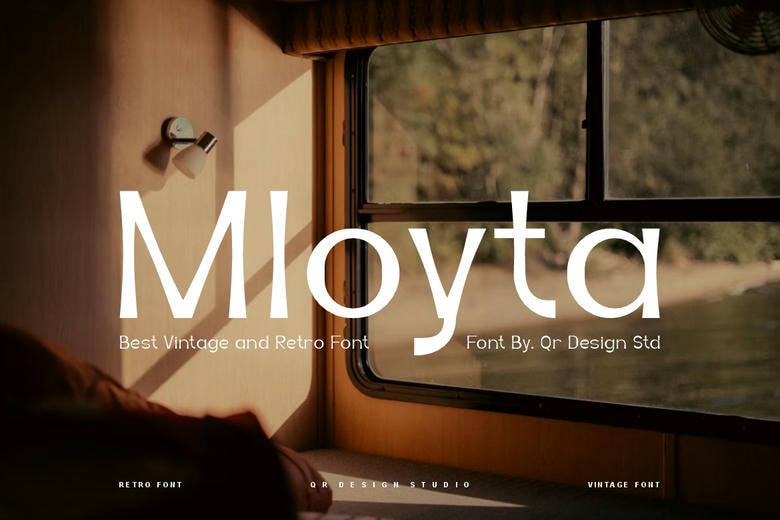
Mloyta Font
Mloyta is a vintage and retro display font that brings timeless nostalgia, warmth, and classic character to your designs. It’s a great choice for vintage apparel, retro packaging, travel blogs, boutique cafe logos, nostalgic posters, and lifestyle branding.
Mloyta Sans Serif Font